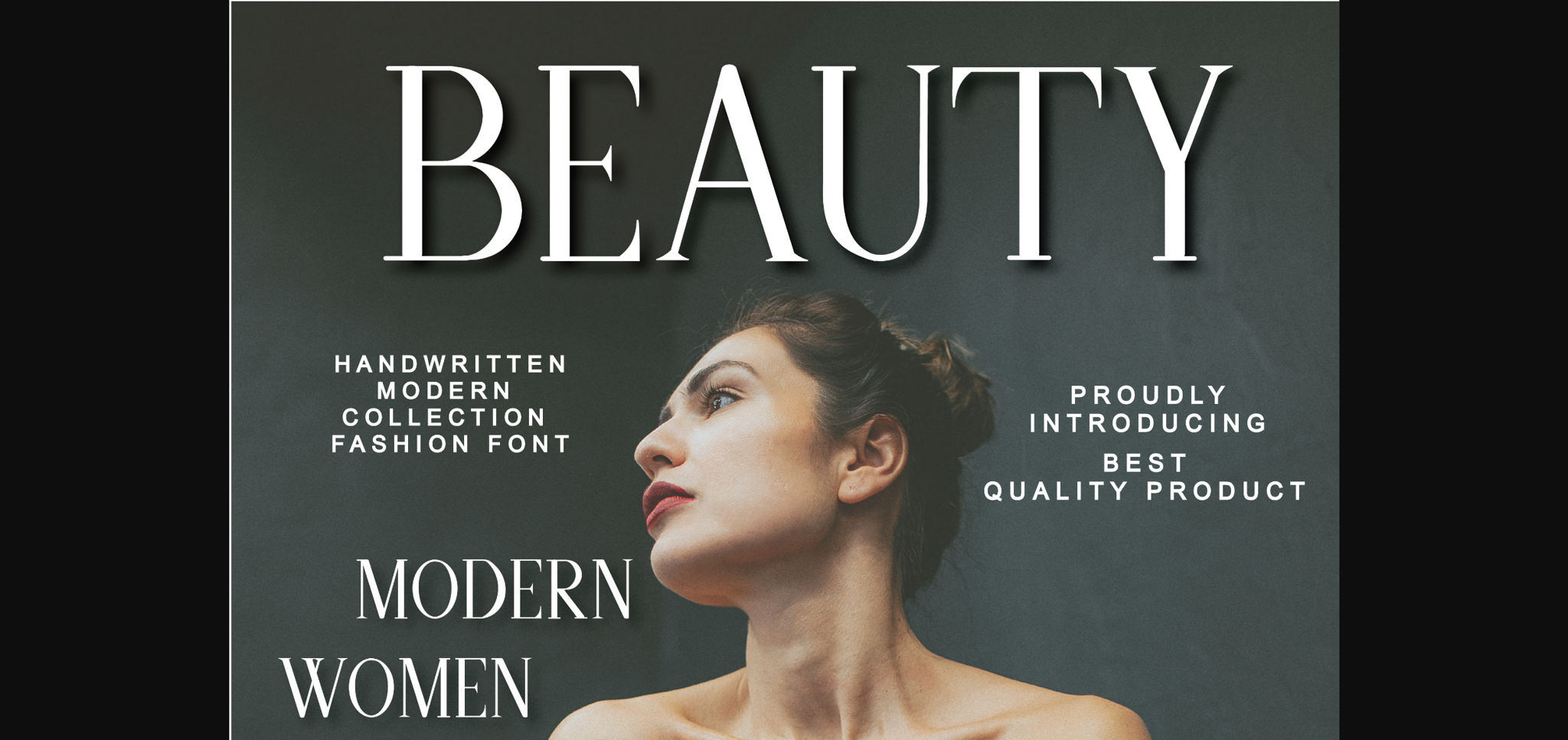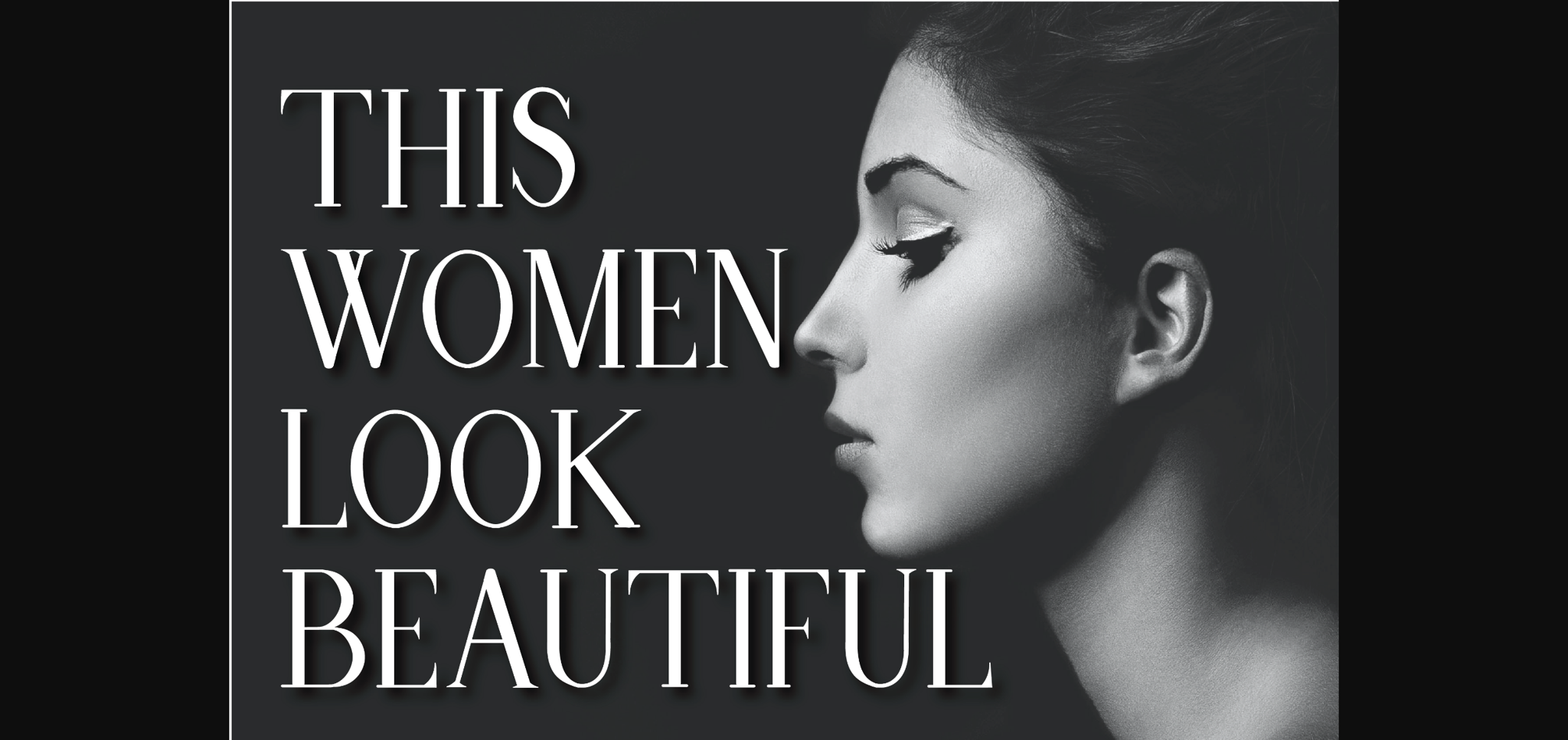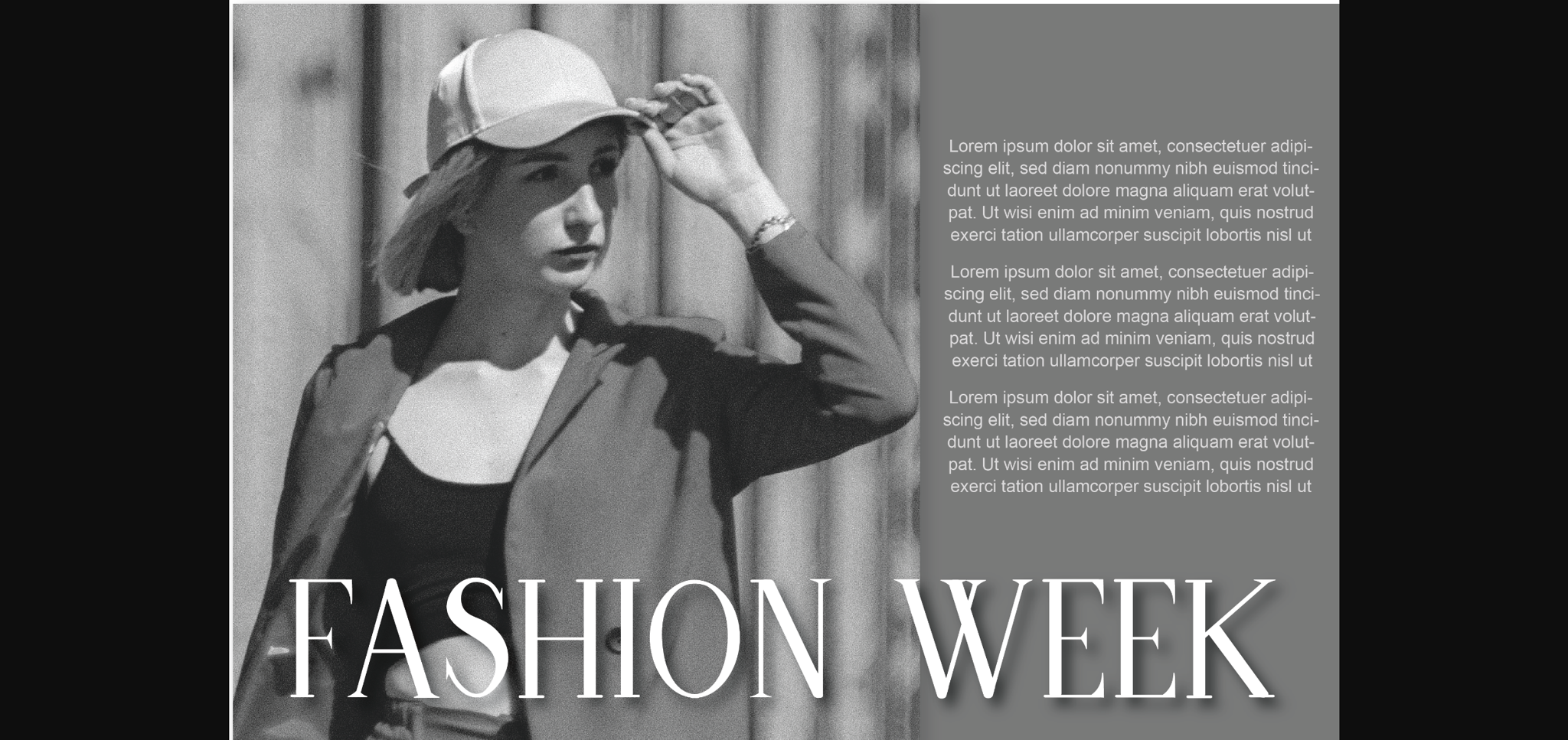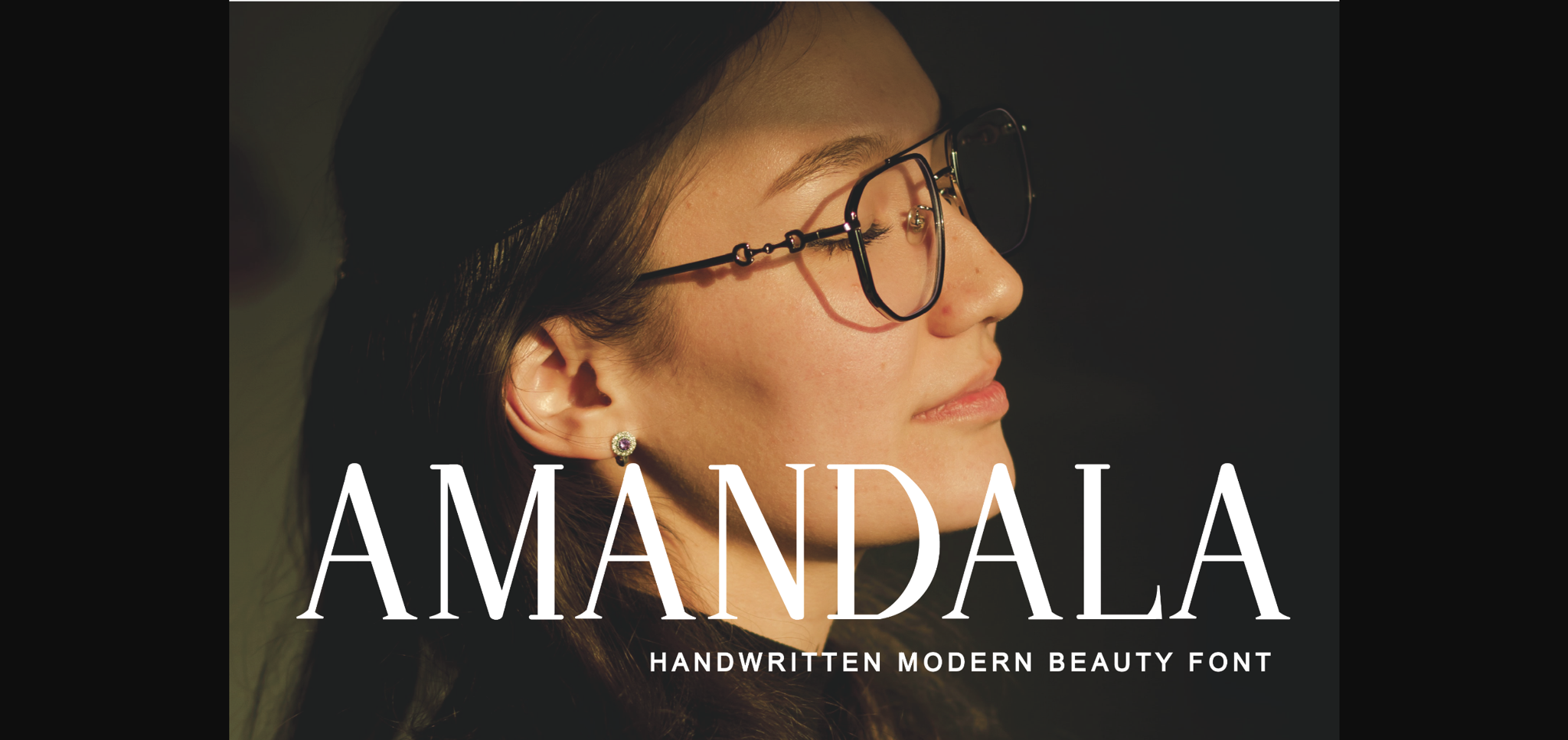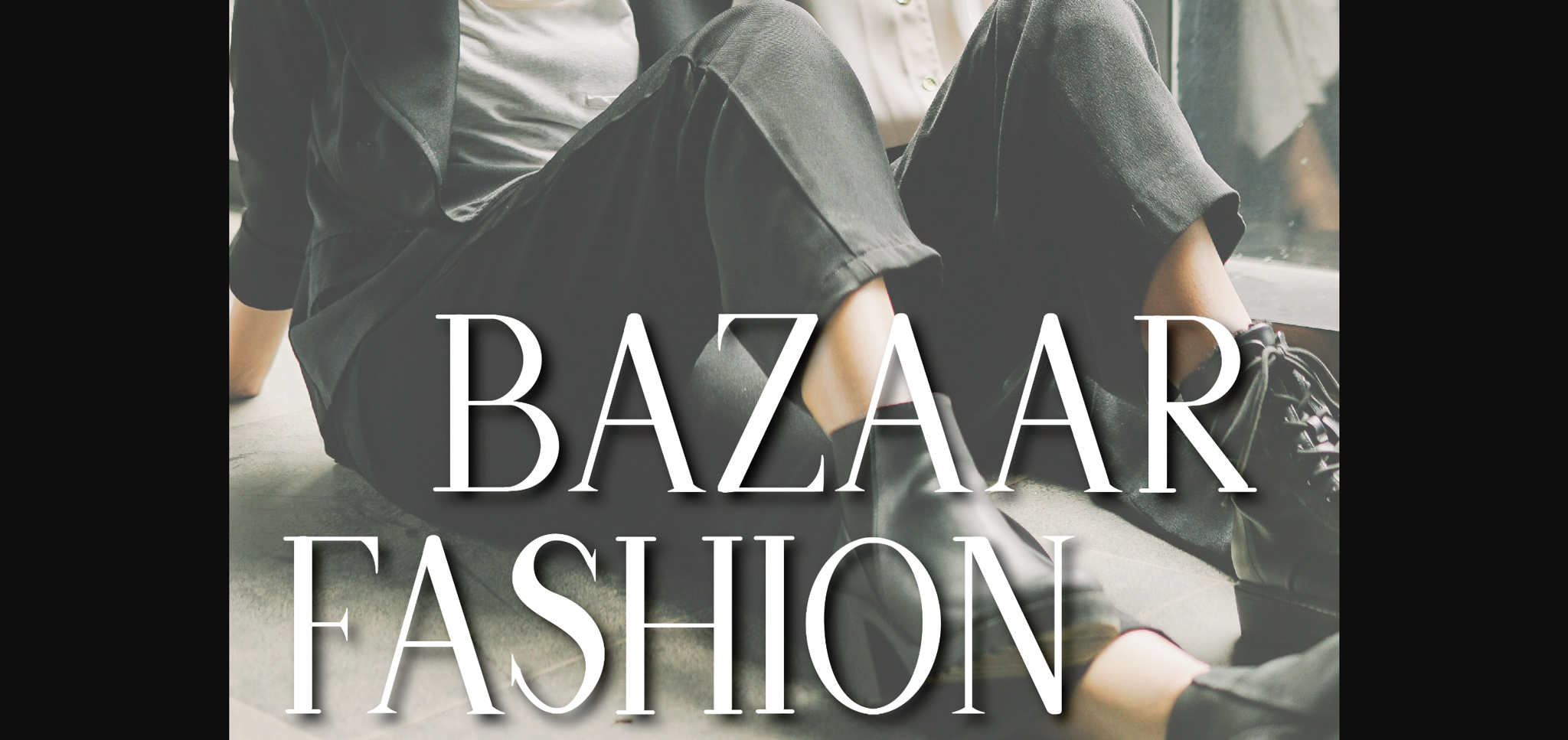
Beauty Font
About Beauty Font
Beauty is a bold and cool display font that looks both modern and futuristic. Add this font to your creative ideas, and see how it stands out and looks perfect for your project!